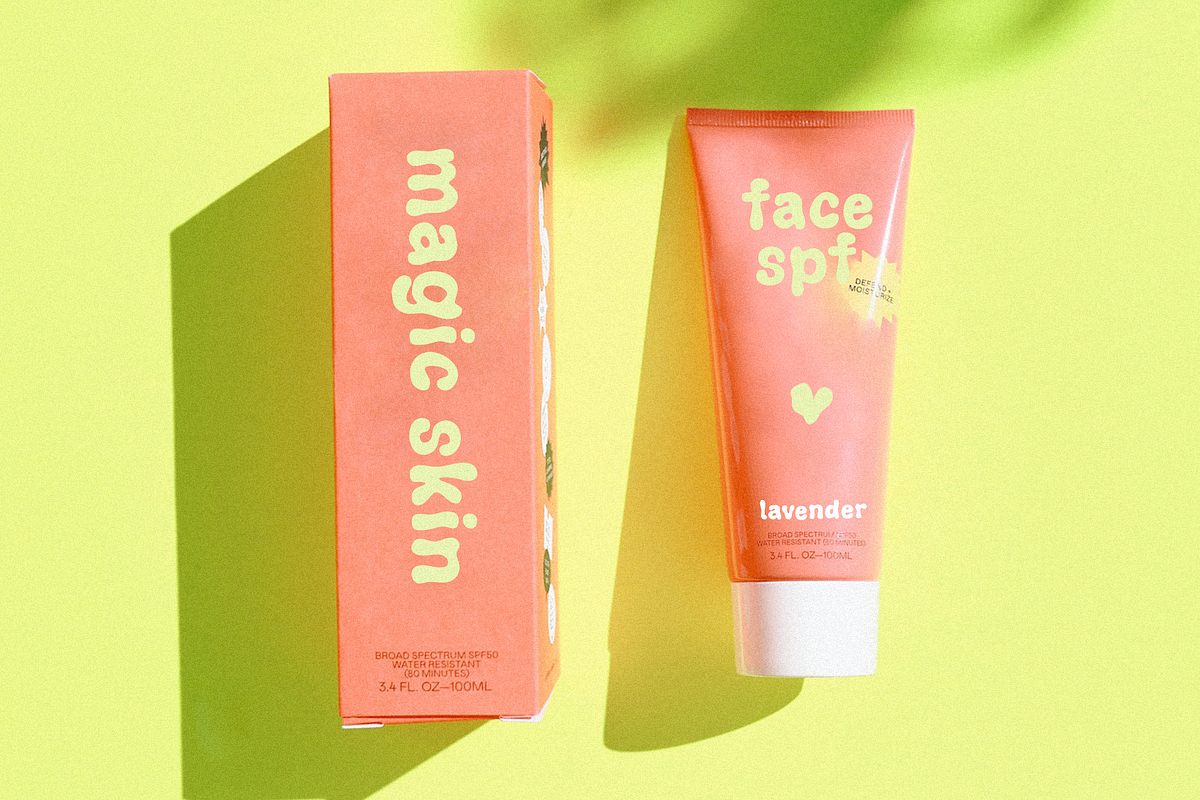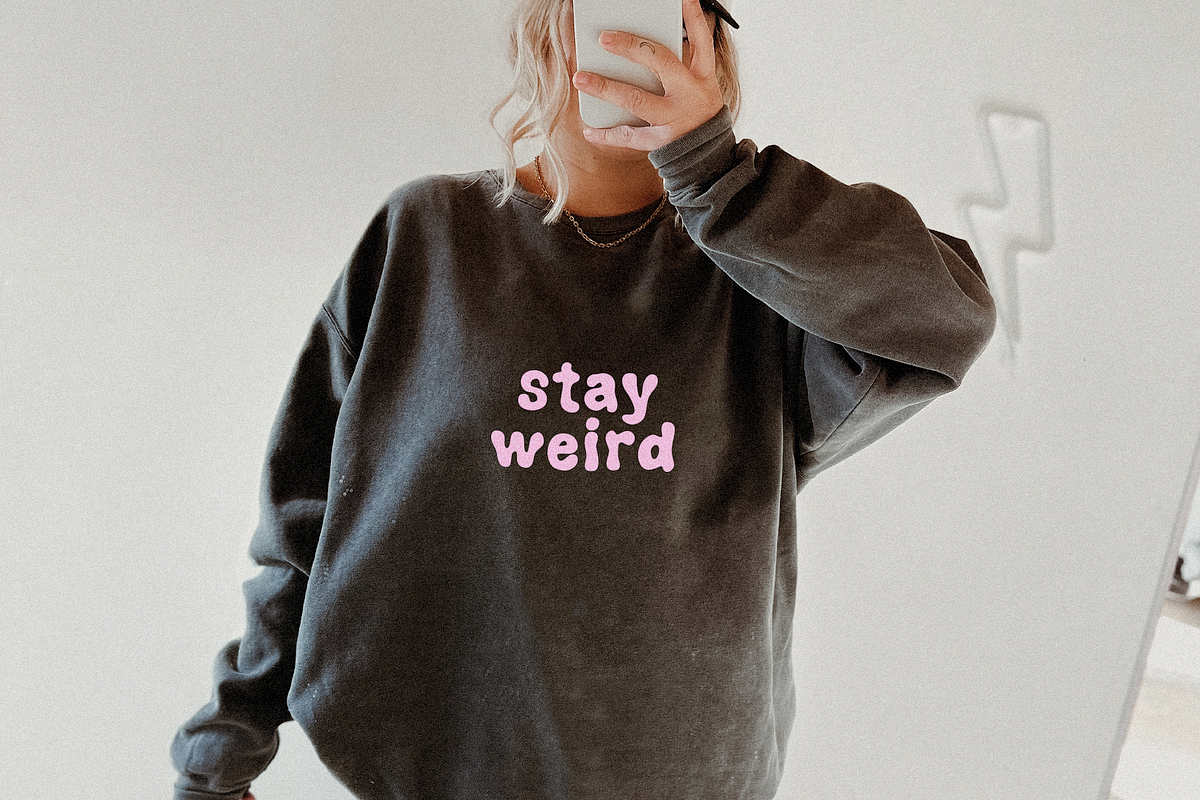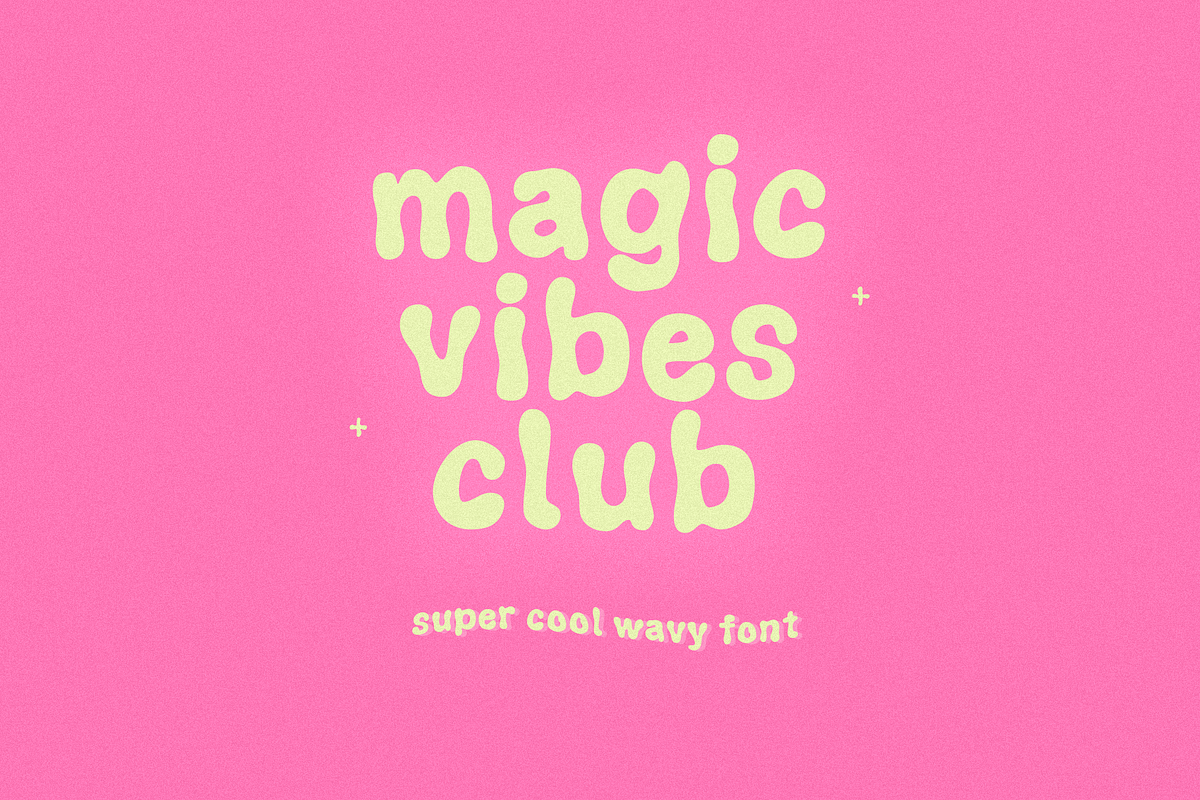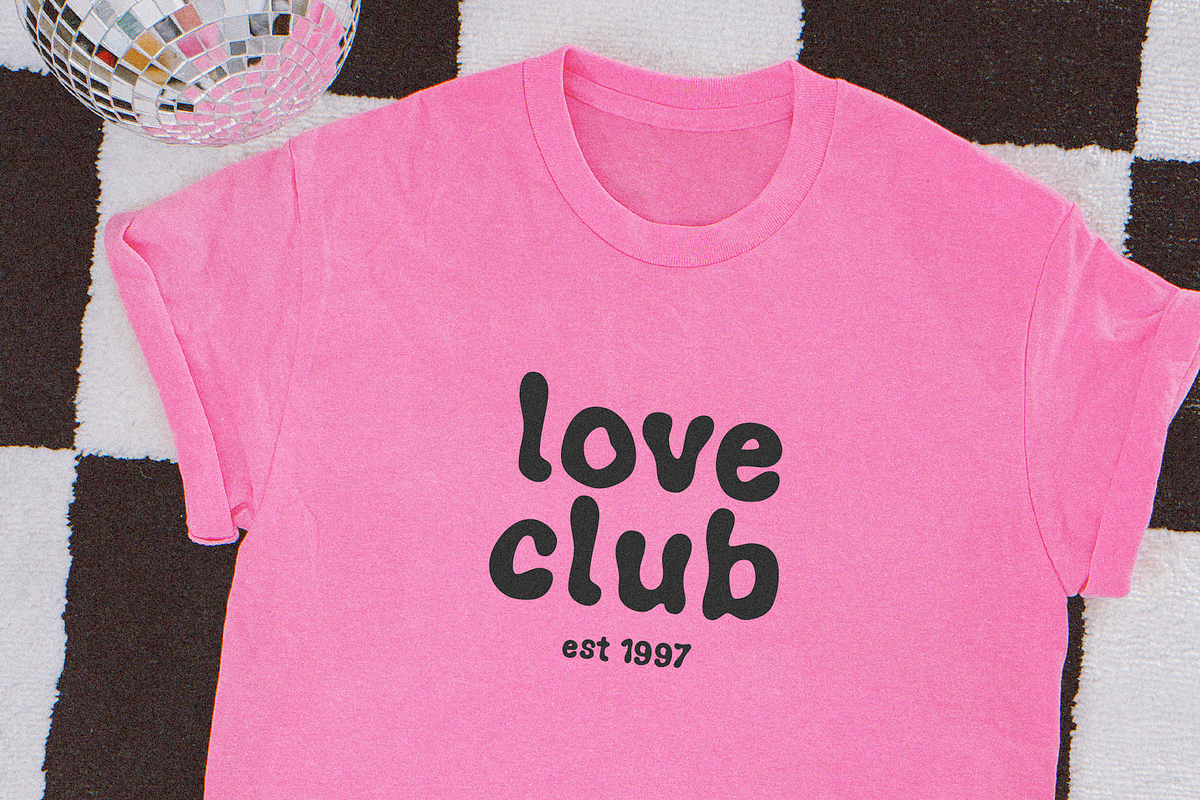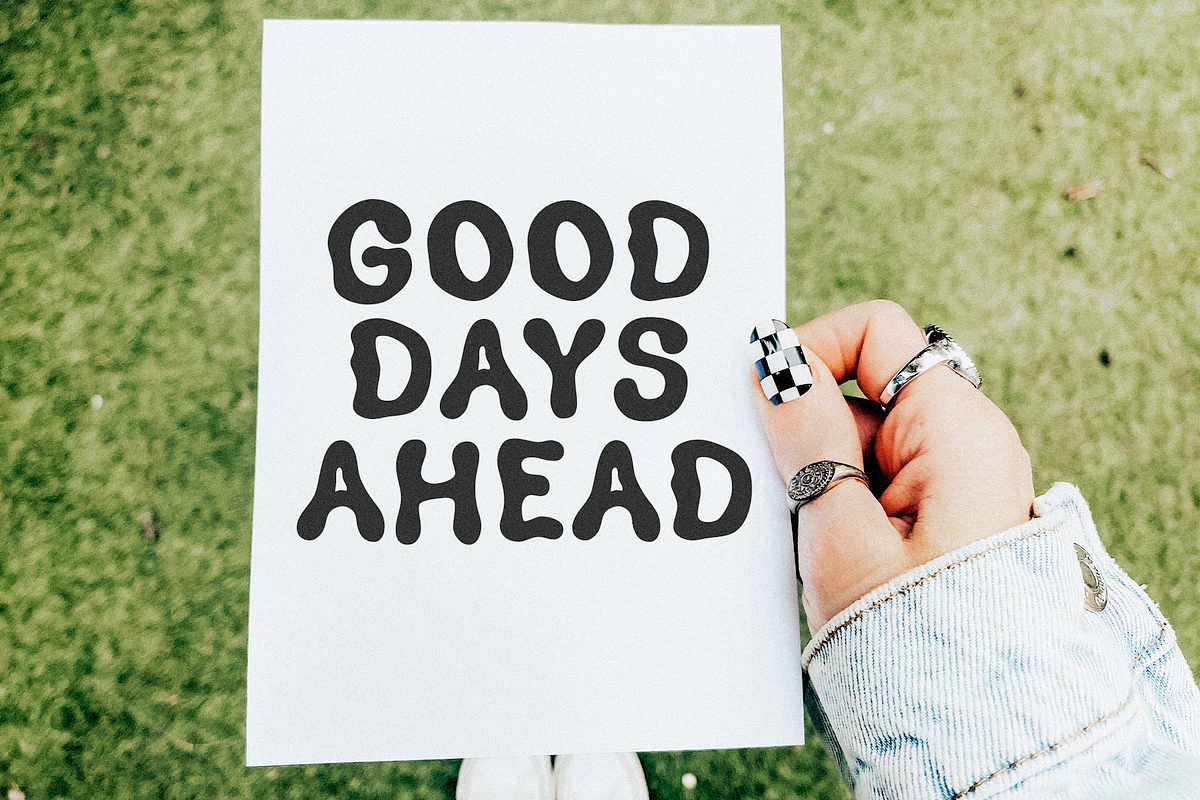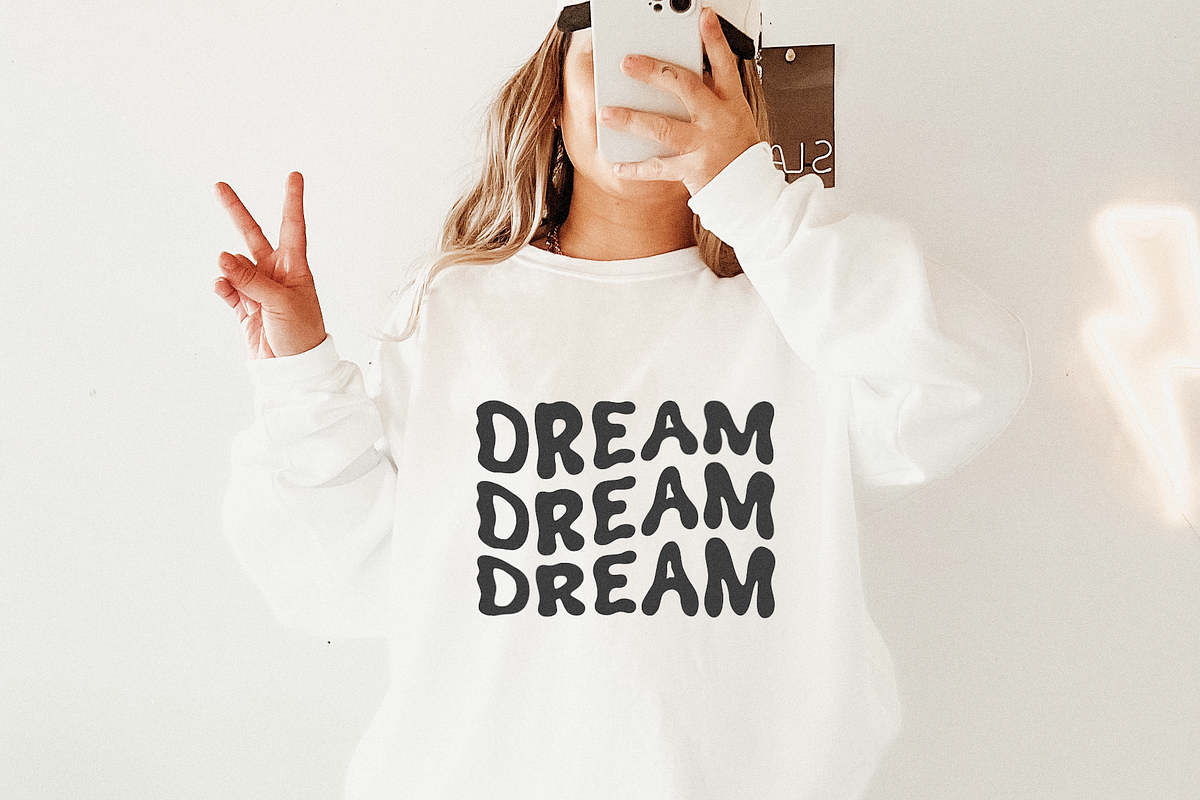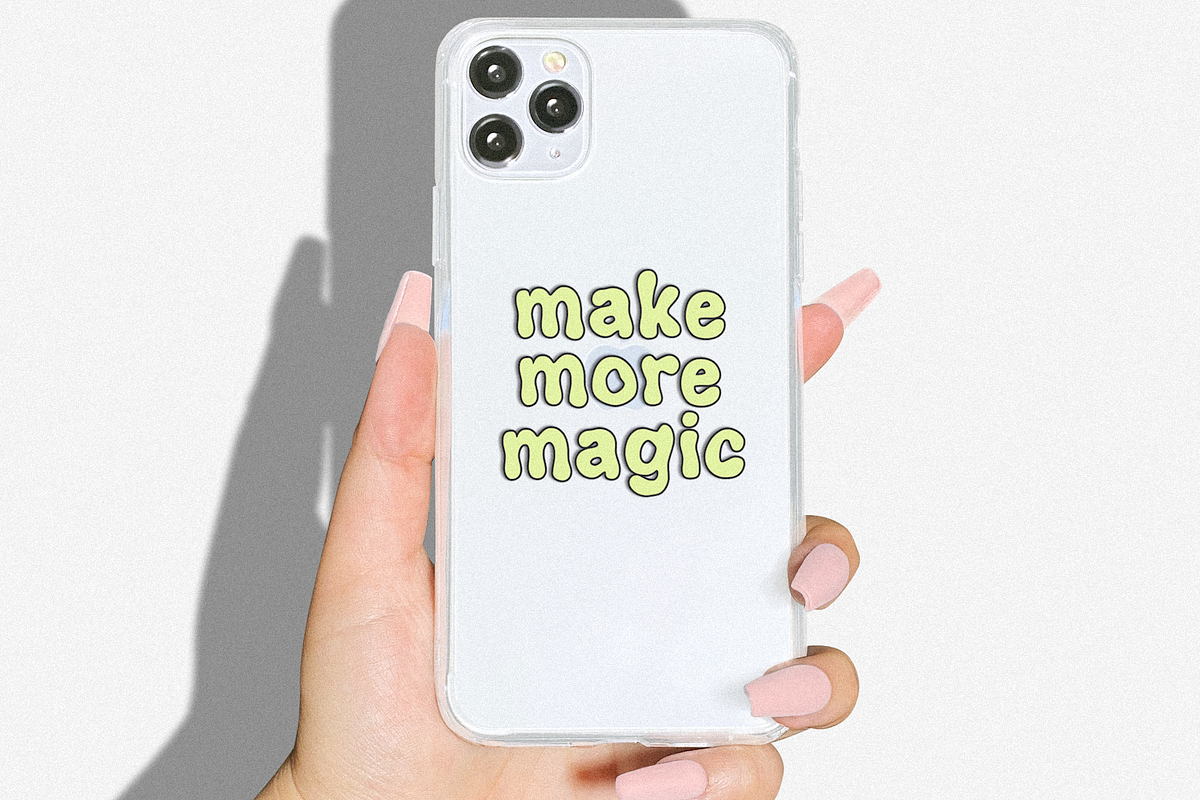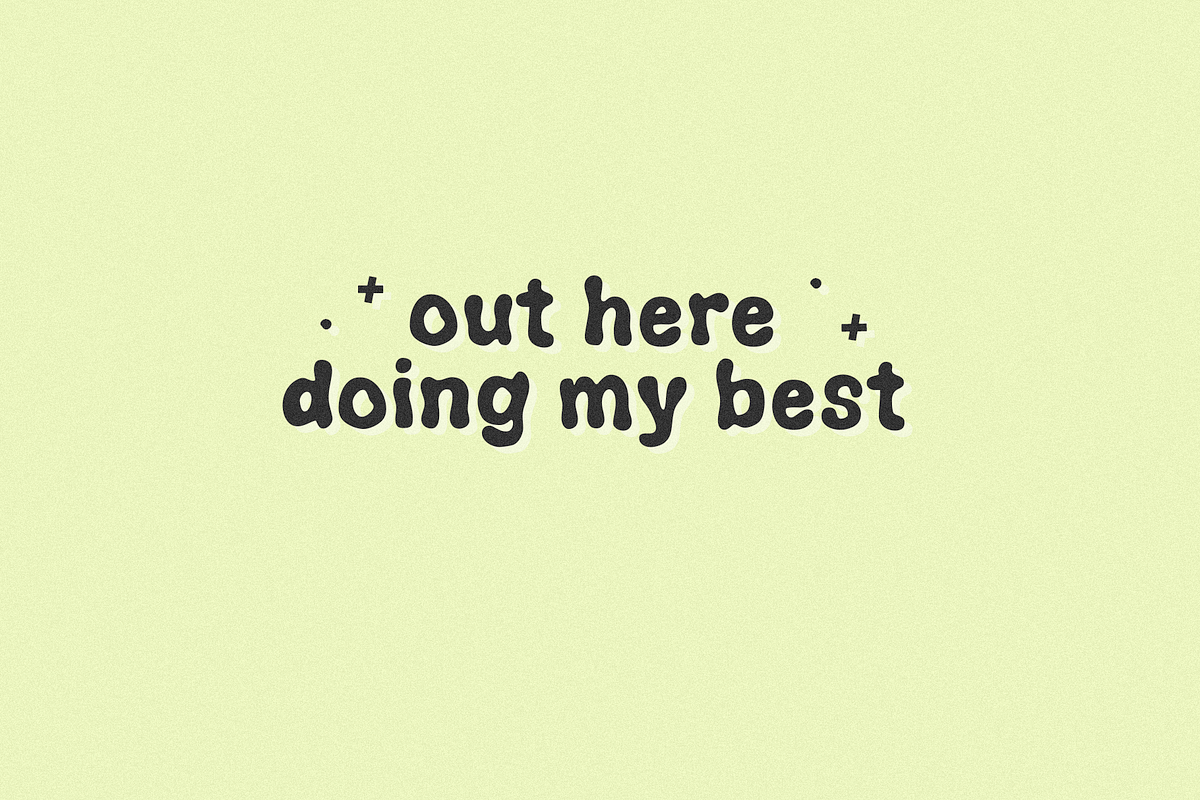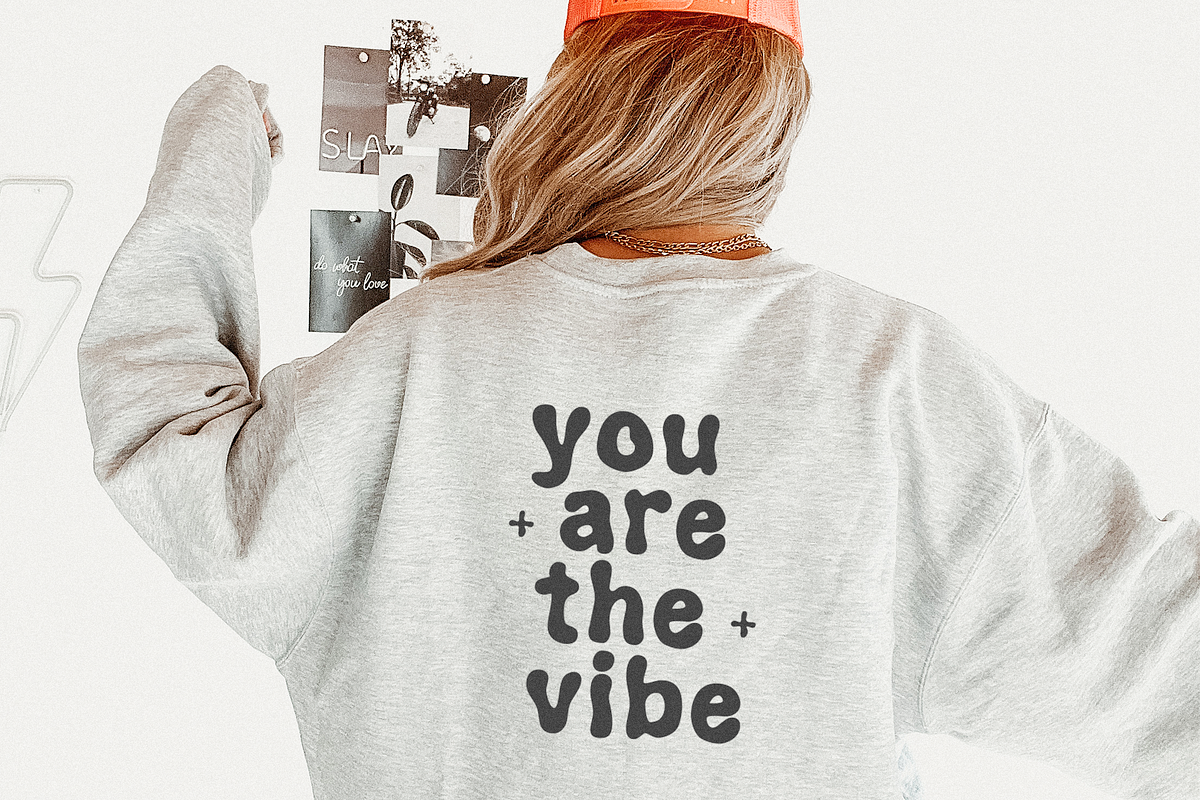
Magic Vibes Club | Retro Wavy Font
Magic Vibes Club is a bubbly wavy retro font.
This font is perfect for retro designs, cricut projects, logos, shirts, mugs, hats, stickers, teachers and more!